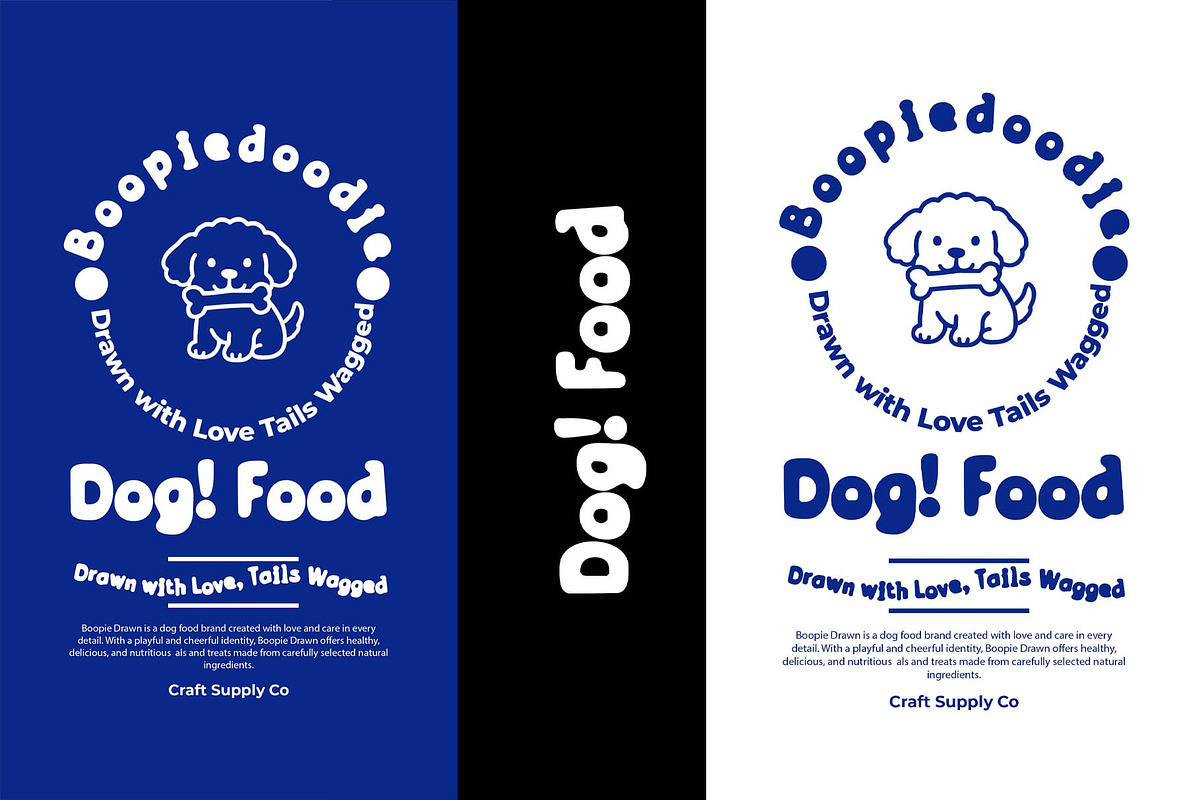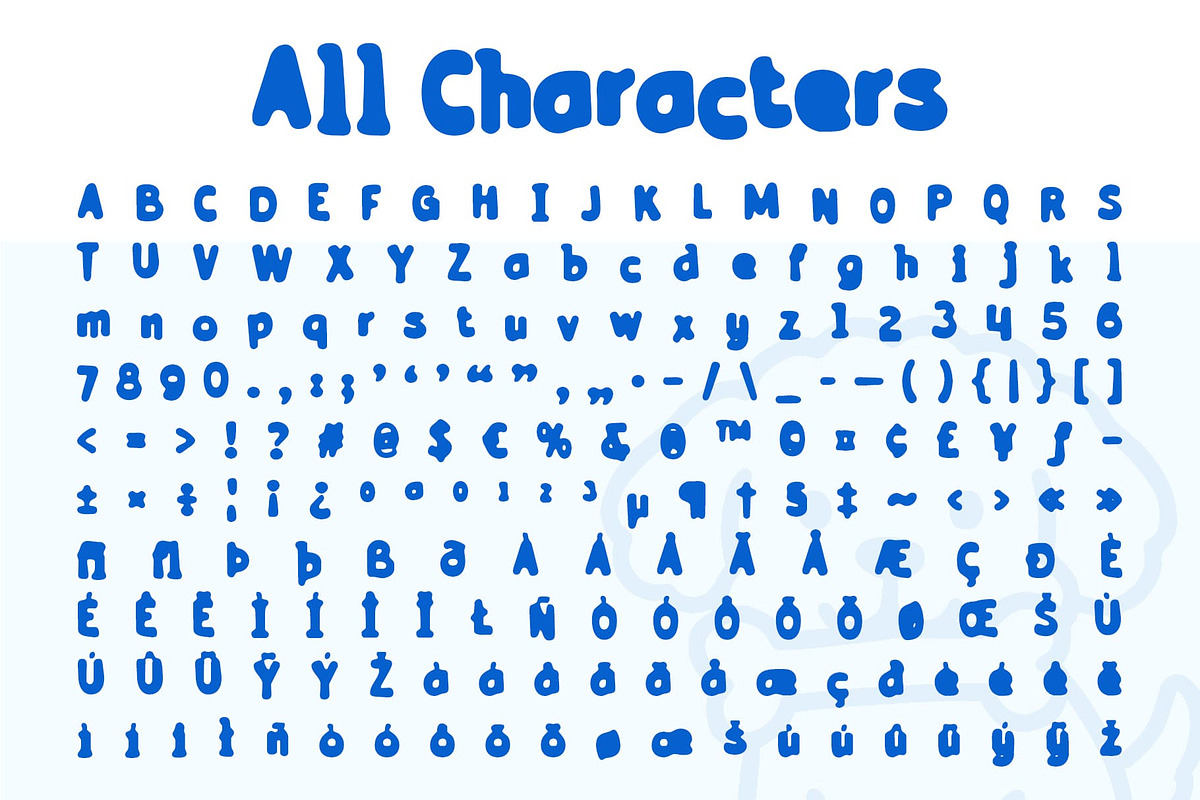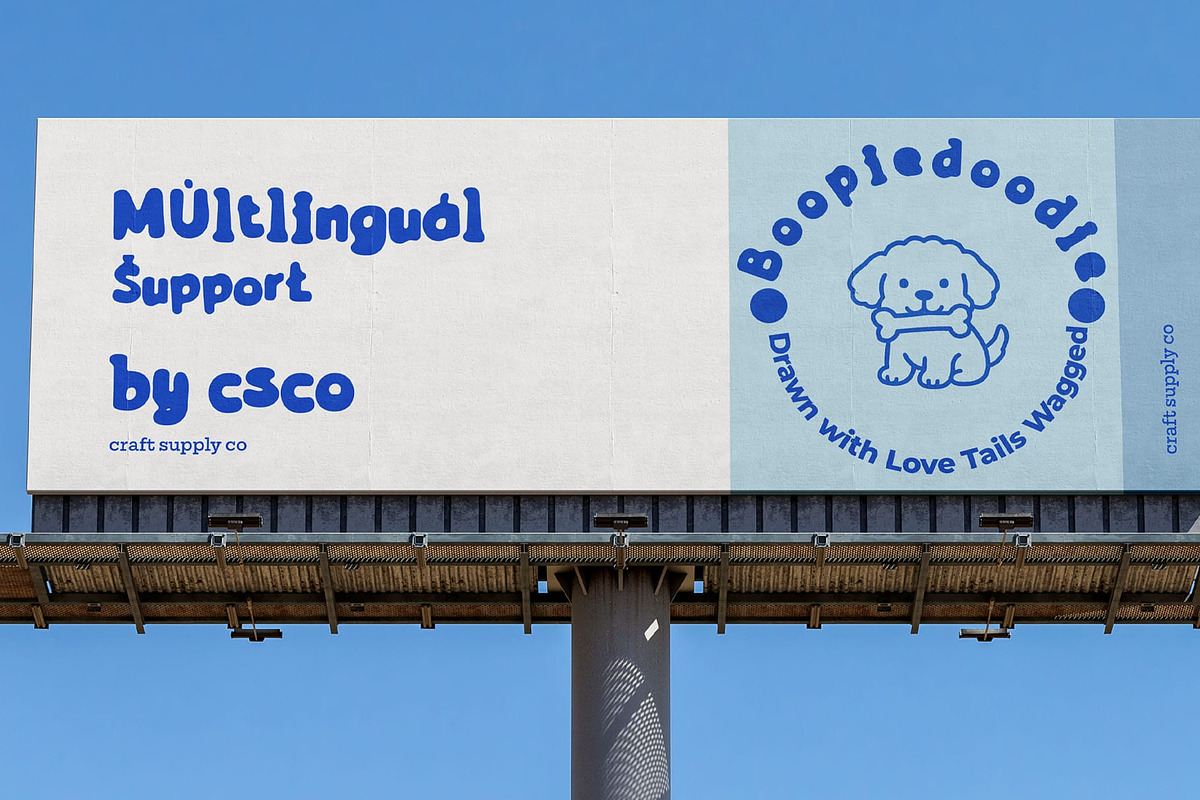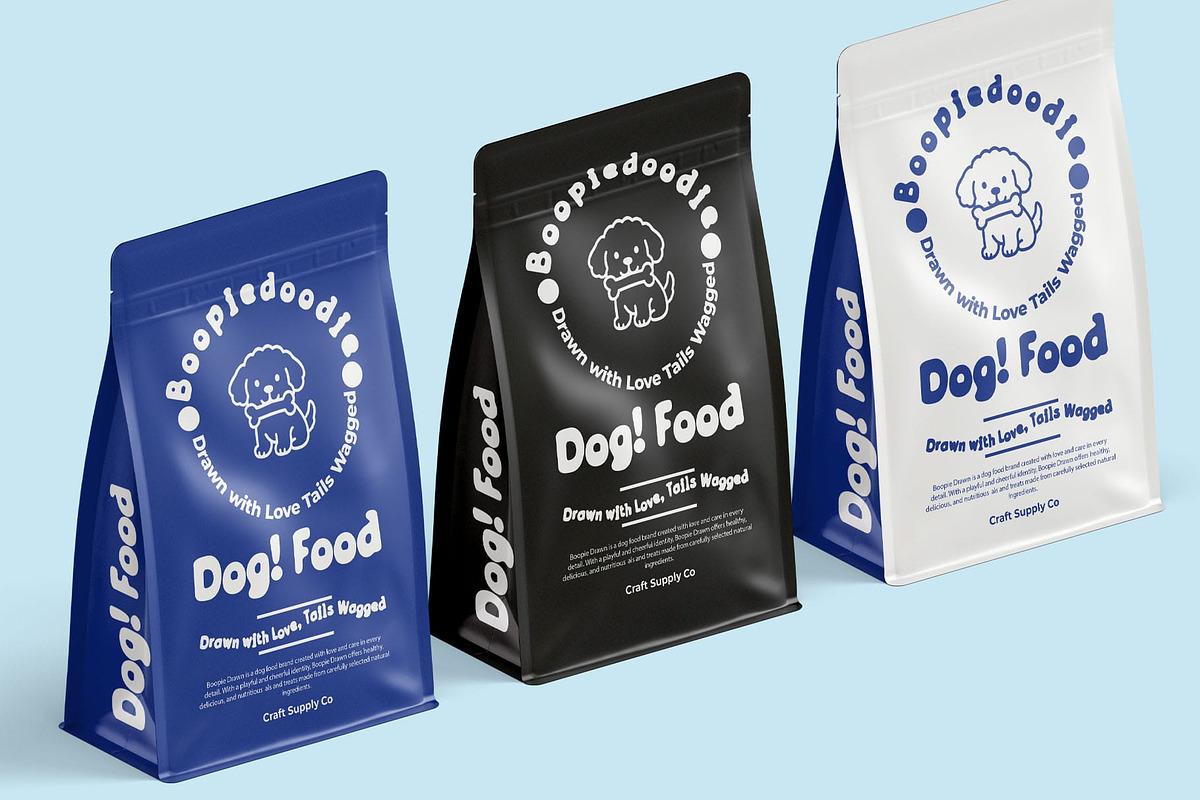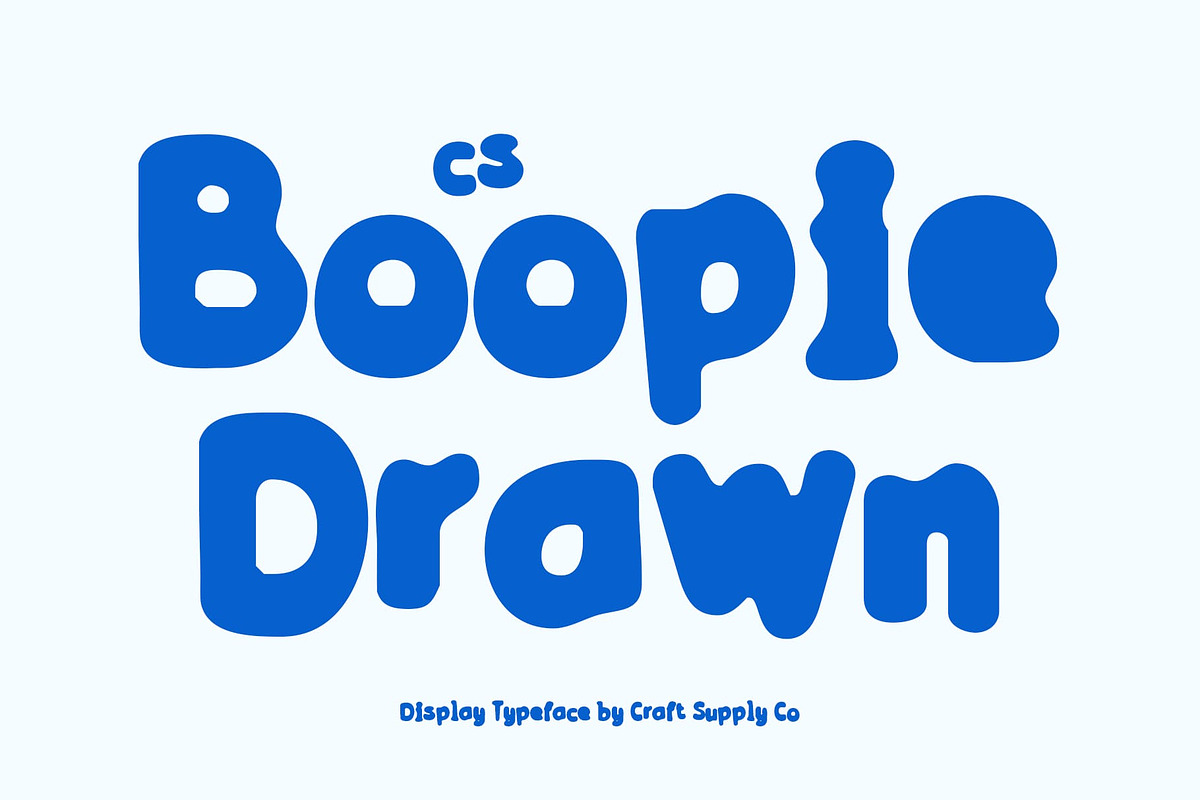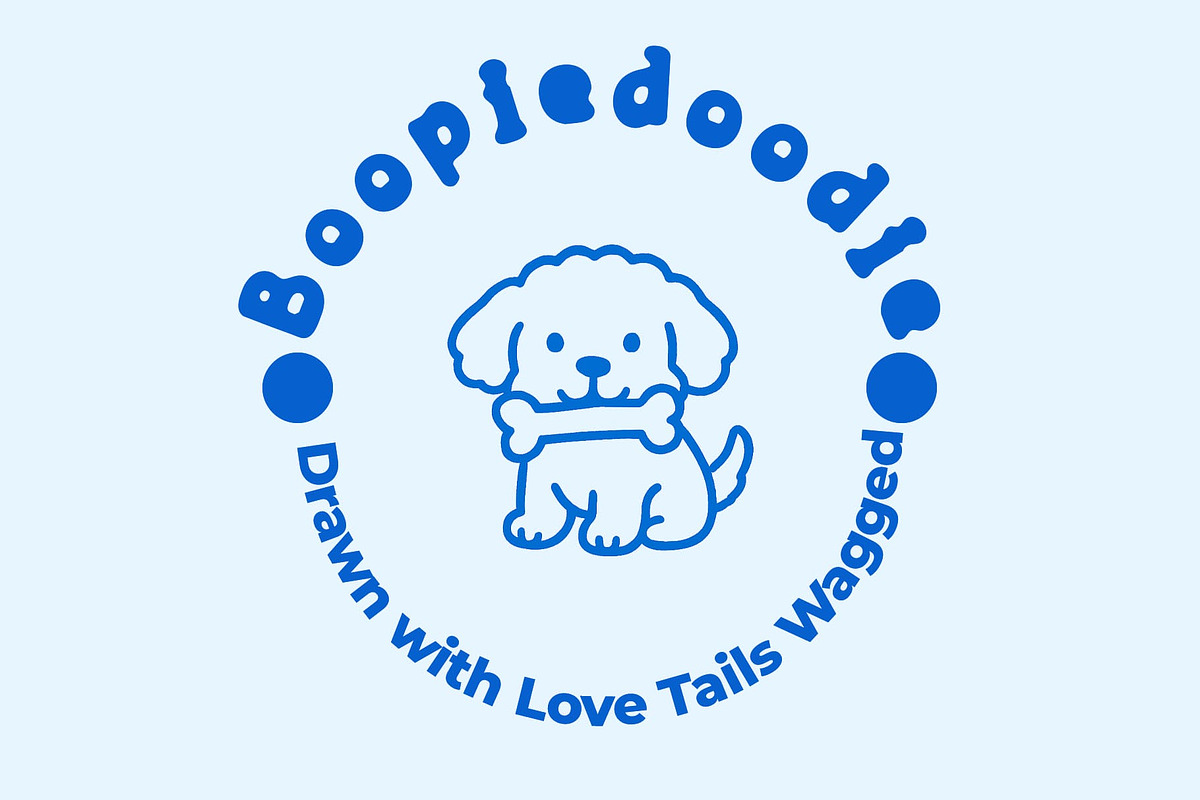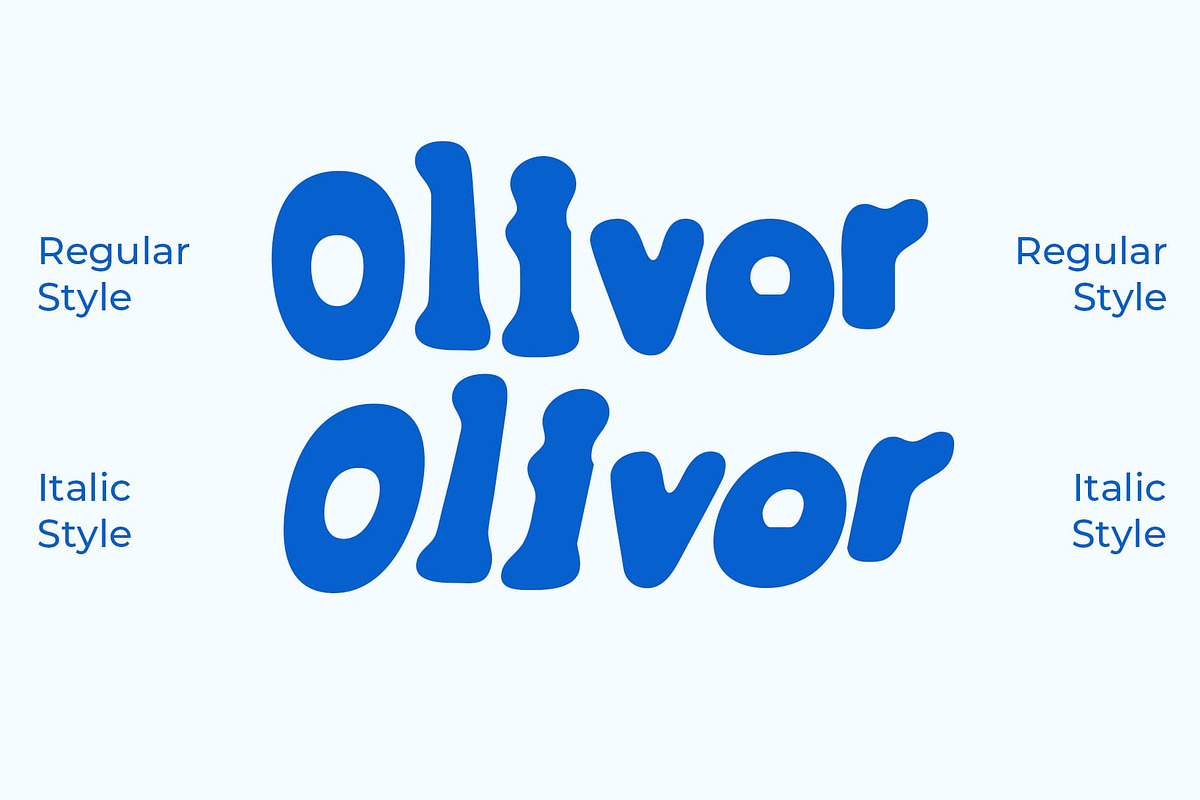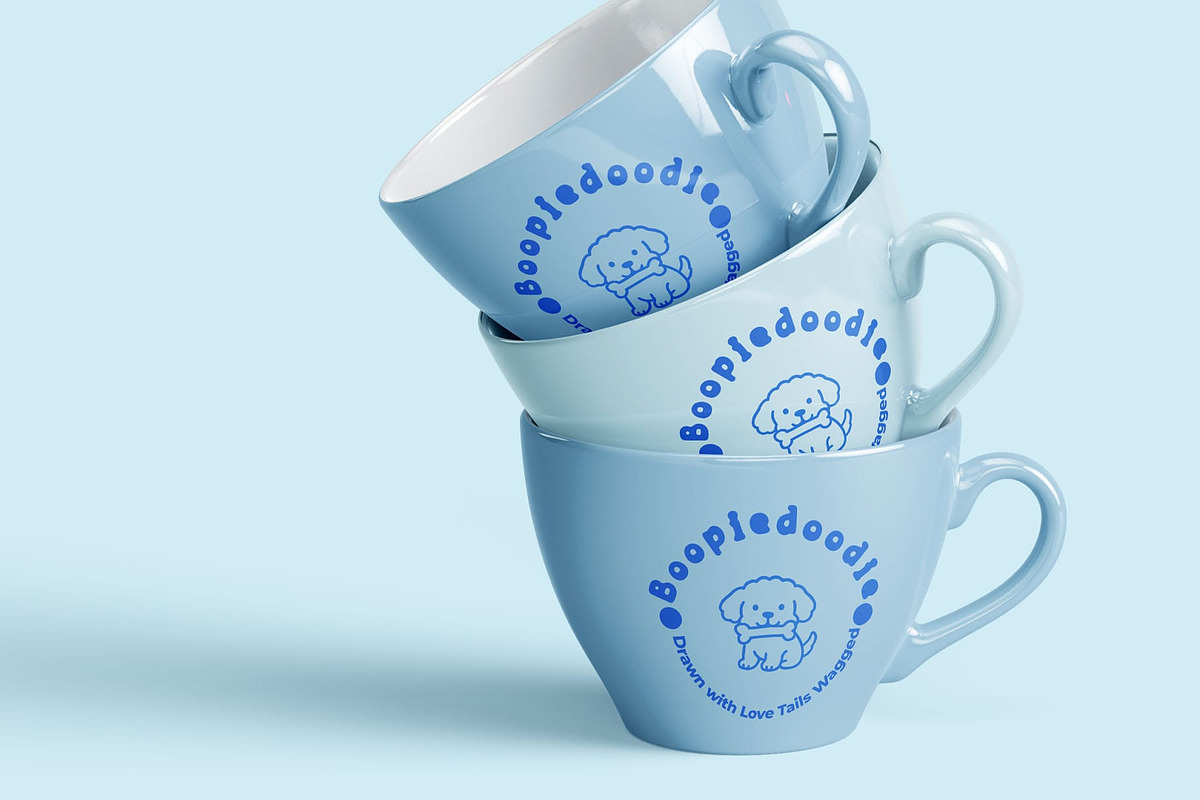
CS Boopie Drawn
CS Boopie Drawn – Fun Font with Playful Energy Fun Font with Bold Strokes and Drawn Texture
Playful Design with Bold Personality CS Boopie Drawn is a lively display font designed to capture attention with its playful curves and bold strokes. Its friendly shapes radiate energy and fun, making it the perfect choice for projects that need a vibrant, approachable personality. Every letter feels dynamic, adding excitement and joy to your designs.
Classic Style with Drawn Texture Blending classic font structures with a modern drawn texture, this font achieves a look that is both familiar and refreshingly creative. The textured finish gives each character a handcrafted feel, enhancing its charm and uniqueness. This balance makes the font versatile, allowing it to stand out in both digital and print projects.
Perfect for Youth Branding and Greeting Cards Whether you’re creating youth-oriented branding, cheerful greeting cards, or fun merchandise, this font delivers the right mood. Its quirky yet clear style ensures readability while keeping a casual, playful tone. From children’s projects to party invitations, this font brings a sense of joy and friendliness to any design.
Versatile for Casual Creative Projects This font is not limited to playful uses—it adapts beautifully to any casual project that calls for warmth and creativity. Designers can use it for posters, packaging, social media graphics, or even event materials. With its bold strokes, friendly shapes, and drawn texture, it becomes a reliable companion for expressing positivity and creativity in typography.
- CS Boopie Drawn Regular
- CS Boopie Drawn Italic